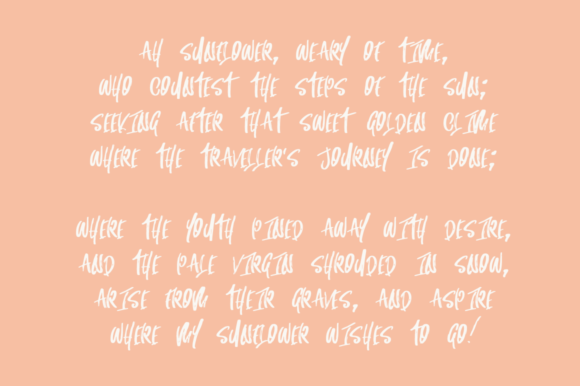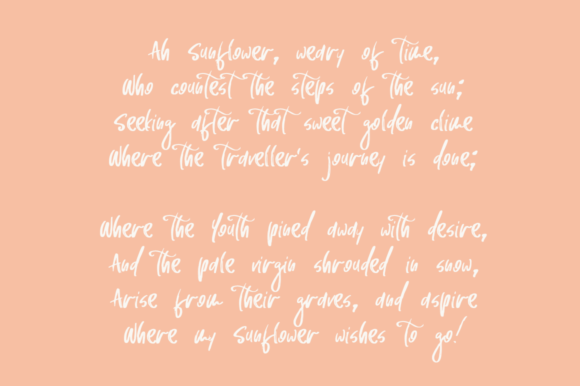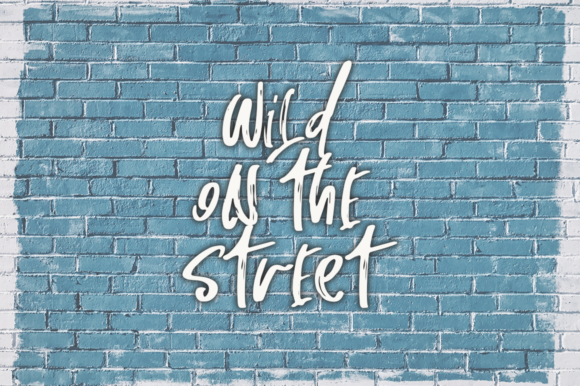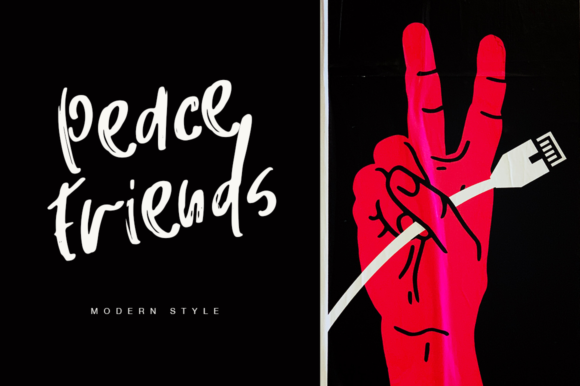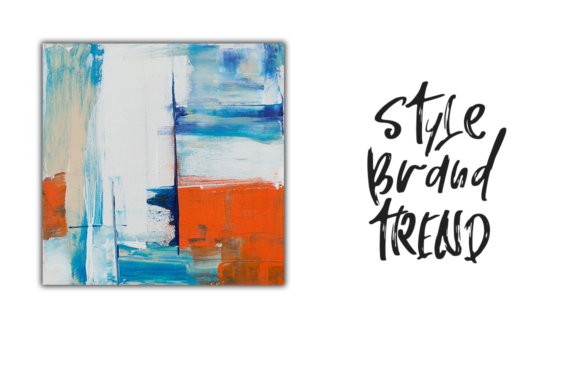
Introduction to Kolomy Font
As designers, we’ve all been there – staring at a blank canvas, trying to spark that creative flame that will bring our vision to life. For me, it’s often the discovery of a new font that sets the wheels in motion. And today, I’m excited to share with you a game-changer: the Kolomy Font. This rough-textured, inked, and dramatic handwritten font is a design treasure trove waiting to be explored.
With its high-quality texture and versatility, the Kolomy Font is an invaluable resource for designers looking to add a touch of sophistication to their creative projects. Whether you’re working on a poster, flyer, or print, this font is sure to make a statement. Plus, with its transparent background, you can easily overlay it on any design element, giving you endless possibilities for customization.
Honest Review: Kolomy Font
I recently had the chance to work with Kolomy Font, a high-quality design resource that’s perfect for creative projects. One of the standout features of this font is its transparent background, which makes it easy to integrate into any design. ✨
The Kolomy Font is a great option for designers looking for a free download that still packs a punch. The font itself is modern and sleek, with a clean aesthetic that works well for a variety of design applications.
- High-quality design with a modern aesthetic
⚠️ One potential limitation of Kolomy Font is that it may not be suitable for all design applications. The font is relatively simple, so it may not be the best choice for complex or detailed designs.
Overall, I’m really impressed with Kolomy Font. It’s a great resource for designers who are looking for a high-quality, free font that’s easy to use. I would definitely recommend it to anyone looking to add some modern flair to their design projects. ✨